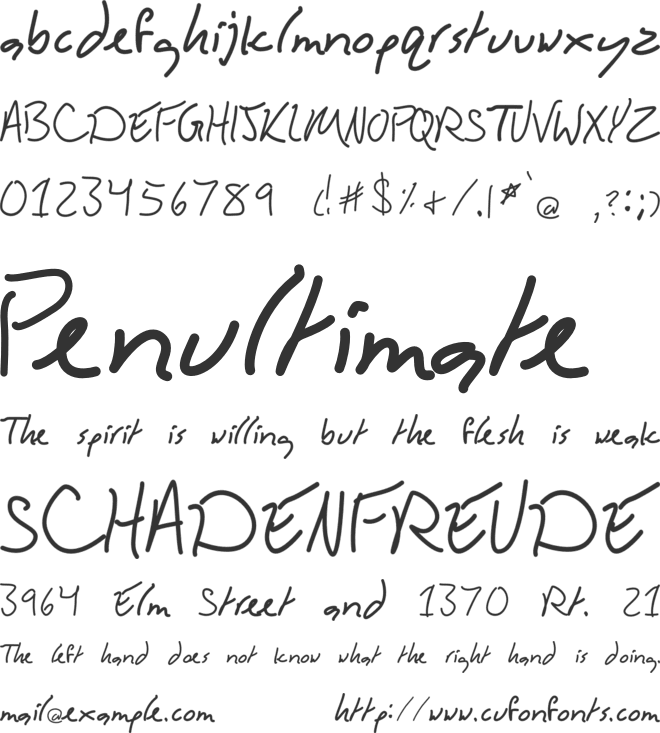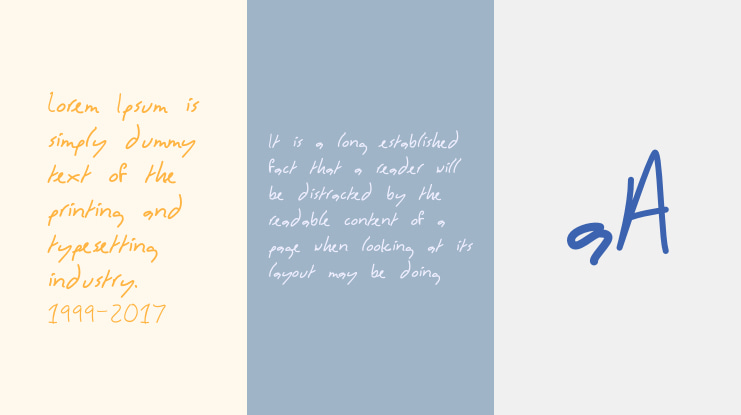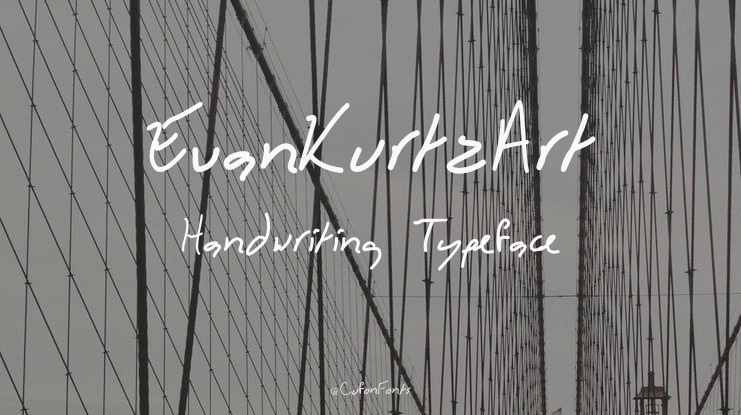
EvanKurtzArt Handwriting Font
This font is based on my own handwriting, with a focus on stylistic accuracy.
It is not meant for copy where legibility is critical, and is really only intended for use as an ancillary element, as it will likely need adjusting.